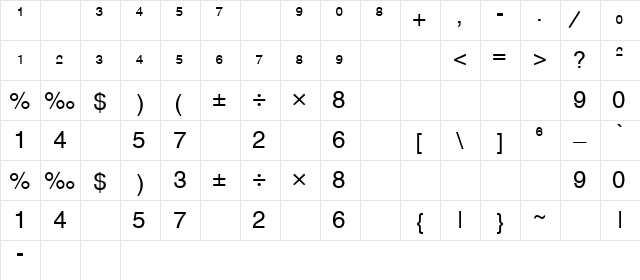
AlexFractions Regular
Design Context for AlexFractions Typeface
AlexFractions is a composed and adaptable typeface that performs quietly and consistently across a wide range of design contexts.